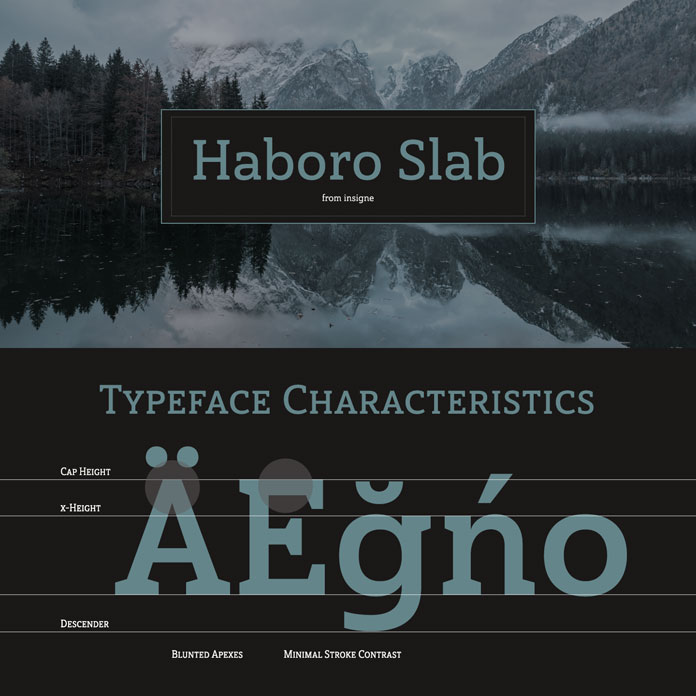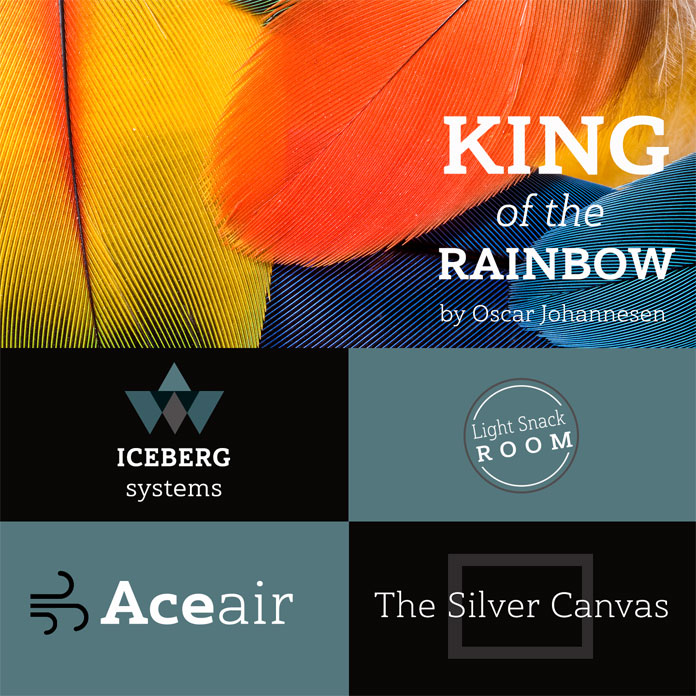
Haboro Slab, a family from foundry Insigne with 54 fonts in 3 widths and 7 weights.
The Haboro Slab font family has been designed by Jeremy Dooley of foundry Insigne in 2016. It’s a unique slab serif that comes with an extensive set of 54 fonts consisting of 3 widths and 7 weights. The typeface is a powerful workhorse, which is well suited for a variety of applications. You can use it in extensive editorial work, corporate identities, a variety of print projects or even web design. This new slab version is part of Insigne’s Haboro superfamily. Its precisely designed shapes ensure great legibility in any size. Compared to other serifs, Haboro Slab’s simplified geometric features result in a more modern look and feel. The wedge-molded serifs give the typeface a timeless touch. Get further information below the image or click on the following link.
The family comes with an extended character set that supports 72 languages. In addition, numerous OpenType features such as ligatures and alternates give you plenty of scope to enhance your typographic work. Insigne’s Haboro Slab type family is available for purchase as both desktop font and webfont.